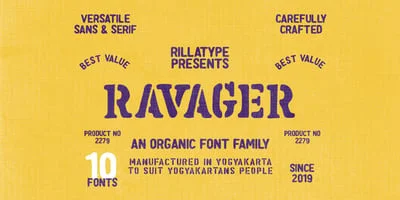
Ravager Font
The Ravager Font is a strikingly bold and aggressive display typeface, characterized by its sharp angles, fragmented forms, and a raw, almost destructive aesthetic. Imagine its commanding characters dominating posters for heavy metal concerts, adding an intense and edgy feel to post-apocalyptic game titles, or creating impactful branding for extreme sports and survival gear. Its robust yet often distorted construction and highly visible presence also make it an excellent choice for album art for industrial or electronic music, striking warning labels, urban street art-inspired graphics, and any design where a strong, unapologetic, and unforgettable visual statement is paramount. Whether you're aiming for a powerful, high-stakes look or a raw, unsettling aesthetic, Ravager Font delivers with its unmistakable character, ensuring your visuals demand attention and convey a sense of primal force and unbridled power.
What makes Ravager Font so exciting is its audacious ability to infuse designs with immediate tension and a cutting-edge, yet chaotic, energy. In a visual landscape that thrives on impact and conceptual depth, this font stands out with its powerful visual presence and inherent ability to evoke themes of destruction, rebellion, and raw strength. It’s more than just a typeface; it’s a design accelerant that can instantly communicate urgency, danger, and a sophisticated, aggressive attitude. Ravager Font offers designers the opportunity to create visuals that are both visually assertive and remarkably unique, making it an invaluable asset for those looking to communicate a sense of power, conflict, and contemporary technological anxiety in an impactful form. For truly impactful designs, explore the Ravager Font.
The Ravager Font family is typically structured to offer a range of styles that amplify its edgy and impactful appeal. Beyond the primary Ravager Regular typeface (which might feature a sharp, almost shattered or scarred quality), you might find companion styles such as a more impactful Ravager Bold for even stronger emphasis, or perhaps Ravager Distorted or Ravager Glitch versions to add different visual textures and further enhance its unsettling or broken aesthetic. Given its display nature and focus on impact, the family may also include unique ligatures, alternate characters, or stylistic sets that allow for even greater customization, particularly in logotypes and large-format headlines, perfecting its ability to evoke a sense of ancient power or digital decay. These diverse family members provide designers with the flexibility to establish a clear typographic hierarchy and maintain a consistent, high-impact, and often avant-garde aesthetic across all elements of their project, from dominant headlines to supporting graphic elements.